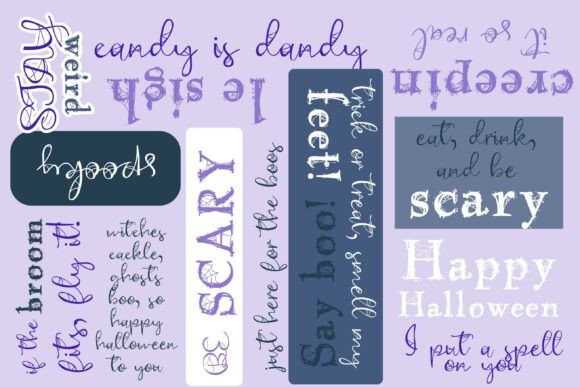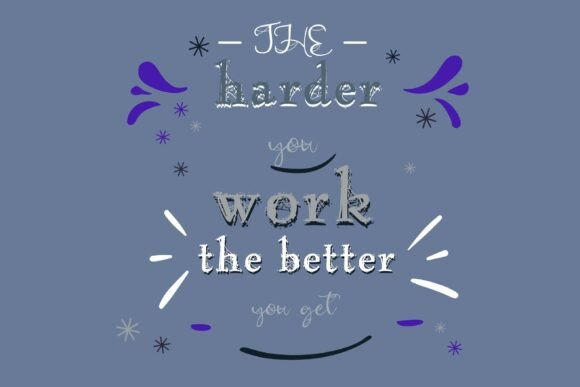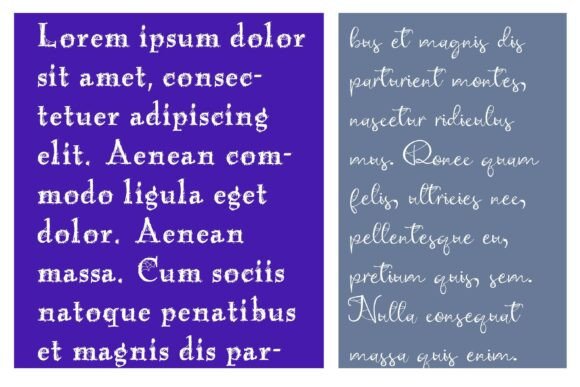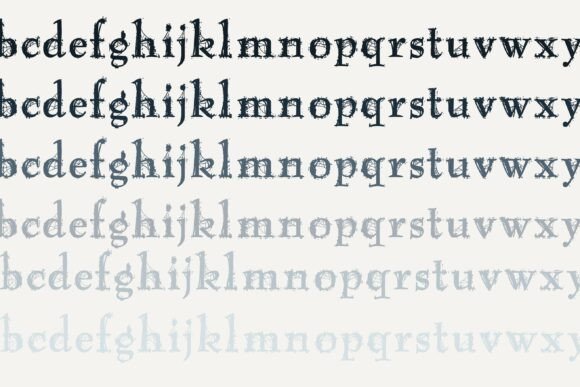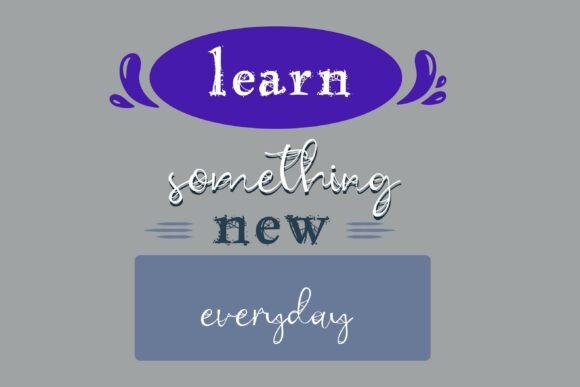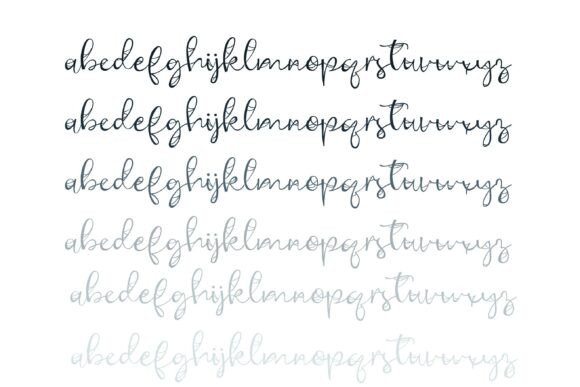
Introducing the Antique Webbing Duo Font: A Hand-Crafted Masterpiece
Are you tired of using the same old fonts in your designs? Look no further! The Antique Webbing Duo Font is a unique and captivating font duo that combines a serif with a hand-written script, all covered in creepy webs. This hand-crafted font duo is perfect for designers and crafters looking to add a touch of elegance and whimsy to their work.
A hand-crafted font is a typeface that is created by hand, often using traditional techniques such as calligraphy or lettering. Unlike digital fonts, hand-crafted fonts have a unique, organic feel that can add a personal touch to any design. Hand-crafted fonts can be either formal or informal, and they can be used for a variety of purposes, from wedding invitations to corporate branding.
Characteristics of Handwritten Fonts
Handwritten fonts, like the Antique Webbing Duo Font, have several distinct characteristics that set them apart from digital fonts. Some of these characteristics include:
- The letters are not perfectly uniform in size or shape.
- There may be slight variations in the spacing between letters and words.
- The font may have a “wiggly” or “squiggly” appearance.
- The font may be difficult to read at small sizes.
The Benefits of Handwritten Fonts
Handwritten fonts can be a great way to add a casual touch to your designs. They can also be used to create a sense of nostalgia or whimsy, making them perfect for projects that require a personal touch. Some of the benefits of using handwritten fonts include:
- Adding a unique and personal touch to your designs.
- Creating a sense of nostalgia or whimsy.
- Conveying a sense of informality or casualness.
- Standing out from the crowd with a one-of-a-kind font.
The Antique Webbing Duo Font: A Closer Look
The Antique Webbing Duo Font is a hand-crafted font duo that combines a serif with a hand-written script, all covered in creepy webs. This unique font duo includes 13 fonts altogether, giving you a range of options to choose from. The Antique Webbing Duo Font is perfect for designers and crafters looking to add a touch of elegance and whimsy to their work.
Using the Antique Webbing Duo Font in Your Designs
The Antique Webbing Duo Font can be used in a variety of designs, from wedding invitations to corporate branding. Here are a few ideas for using this font in your designs:
- Wedding invitations: The Antique Webbing Duo Font is perfect for wedding invitations, adding a touch of elegance and whimsy to your design.
- Corporate branding: The serif font in the Antique Webbing Duo Font duo is perfect for corporate branding, conveying a sense of professionalism and sophistication.
- Stationery: The hand-written script font in the Antique Webbing Duo Font duo is perfect for stationery, adding a personal touch to your letters and notes.
Tips for Choosing the Right Handwritten Font
When choosing a handwritten font, it’s essential to consider the project you are working on. A formal handwritten font may not be appropriate for a casual invitation, while an informal handwritten font may not be appropriate for a corporate document. Here are a few tips for choosing the right handwritten font:
- Consider the tone of your project: If you’re working on a formal project, choose a formal handwritten font. If you’re working on a casual project, choose an informal handwritten font.
- Consider the audience: If you’re designing for a corporate audience, choose a serif font. If you’re designing for a younger audience, choose a hand-written script font.
- Consider the purpose: If you’re designing a wedding invitation, choose a font that is elegant and sophisticated. If you’re designing a children’s book, choose a font that is playful and whimsical.
The Antique Webbing Duo Font is a unique and captivating font duo that combines a serif with a hand-written script, all covered in creepy webs. This hand-crafted font duo is perfect for designers and crafters looking to add a touch of elegance and whimsy to their work. With its range of uses and benefits, the Antique Webbing Duo Font is a must-have for any designer or crafter looking to take their designs to the next level.